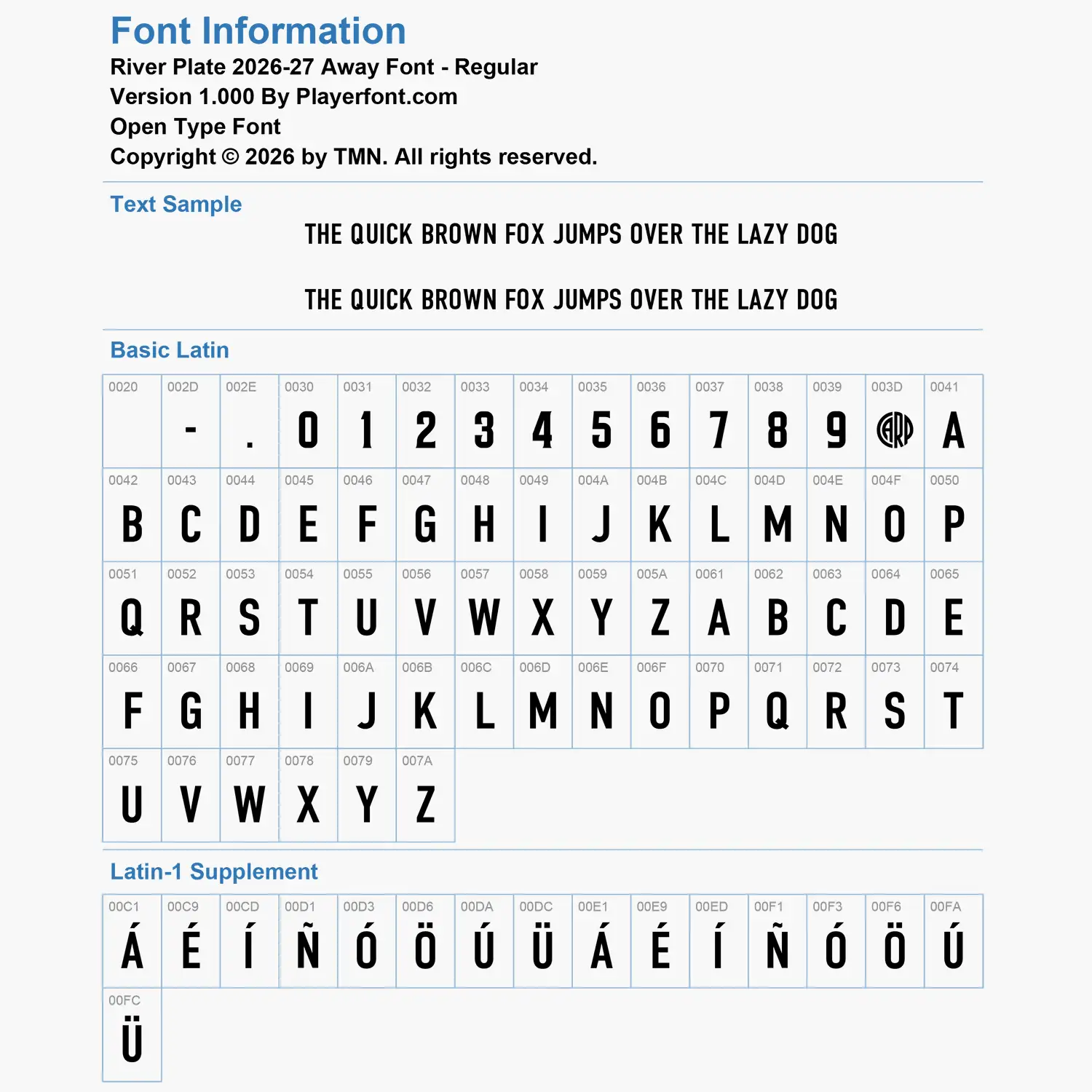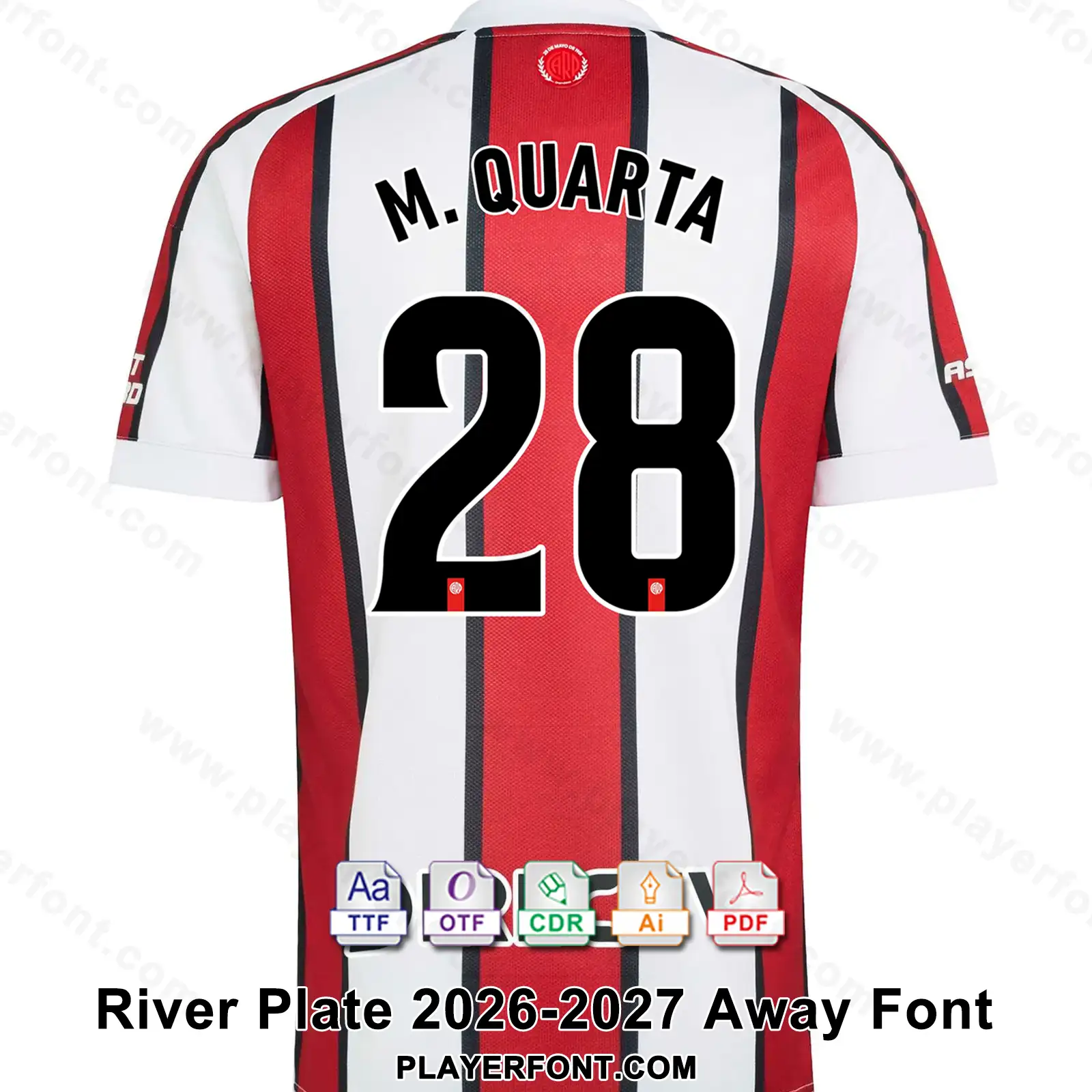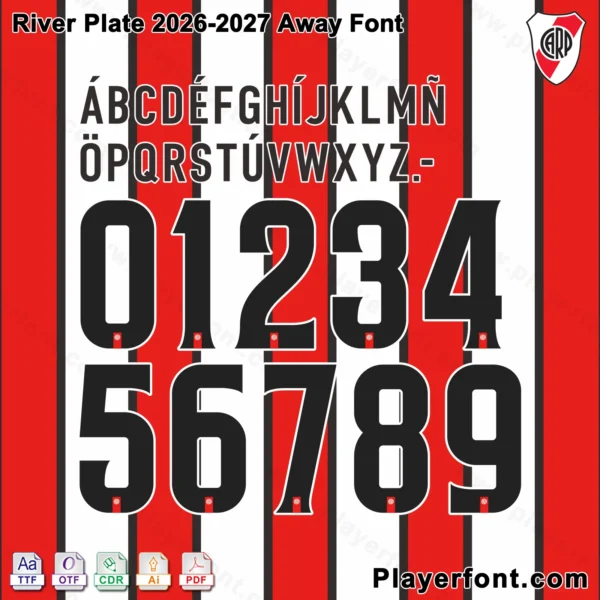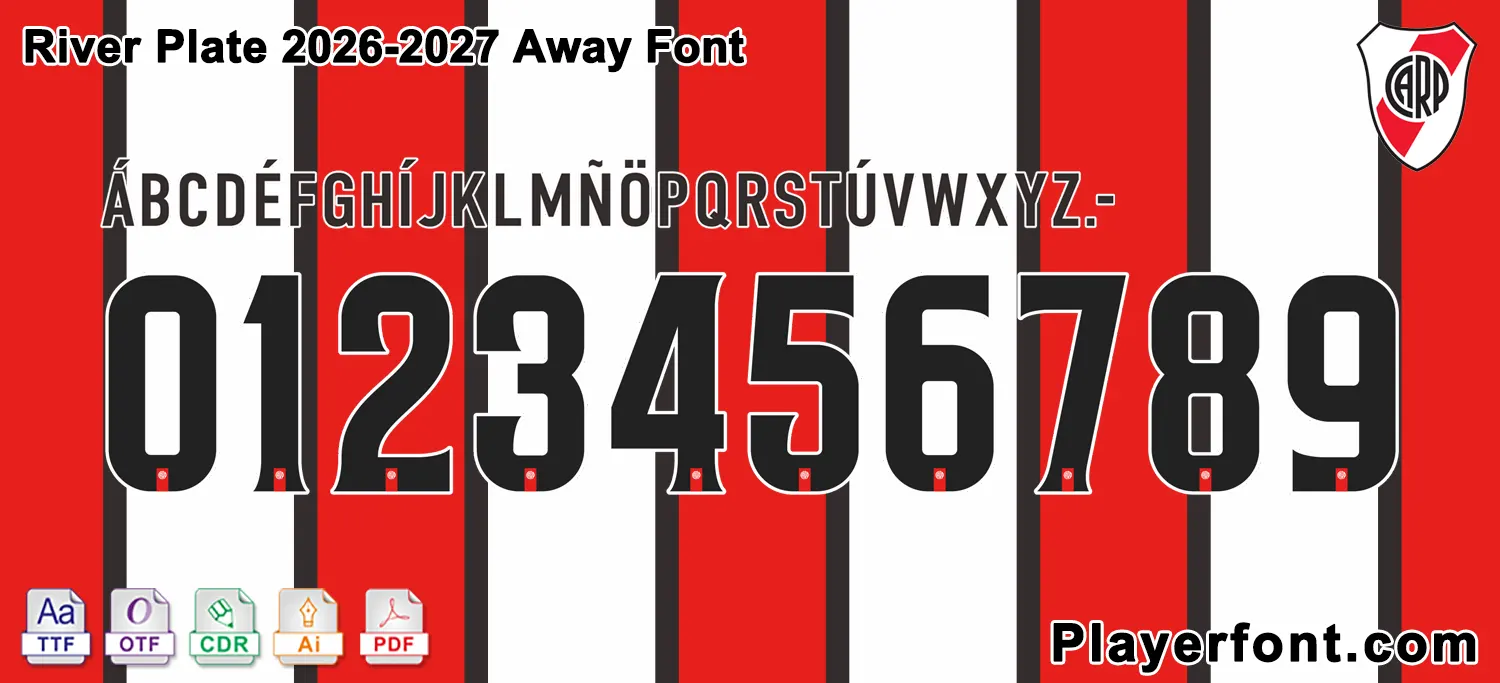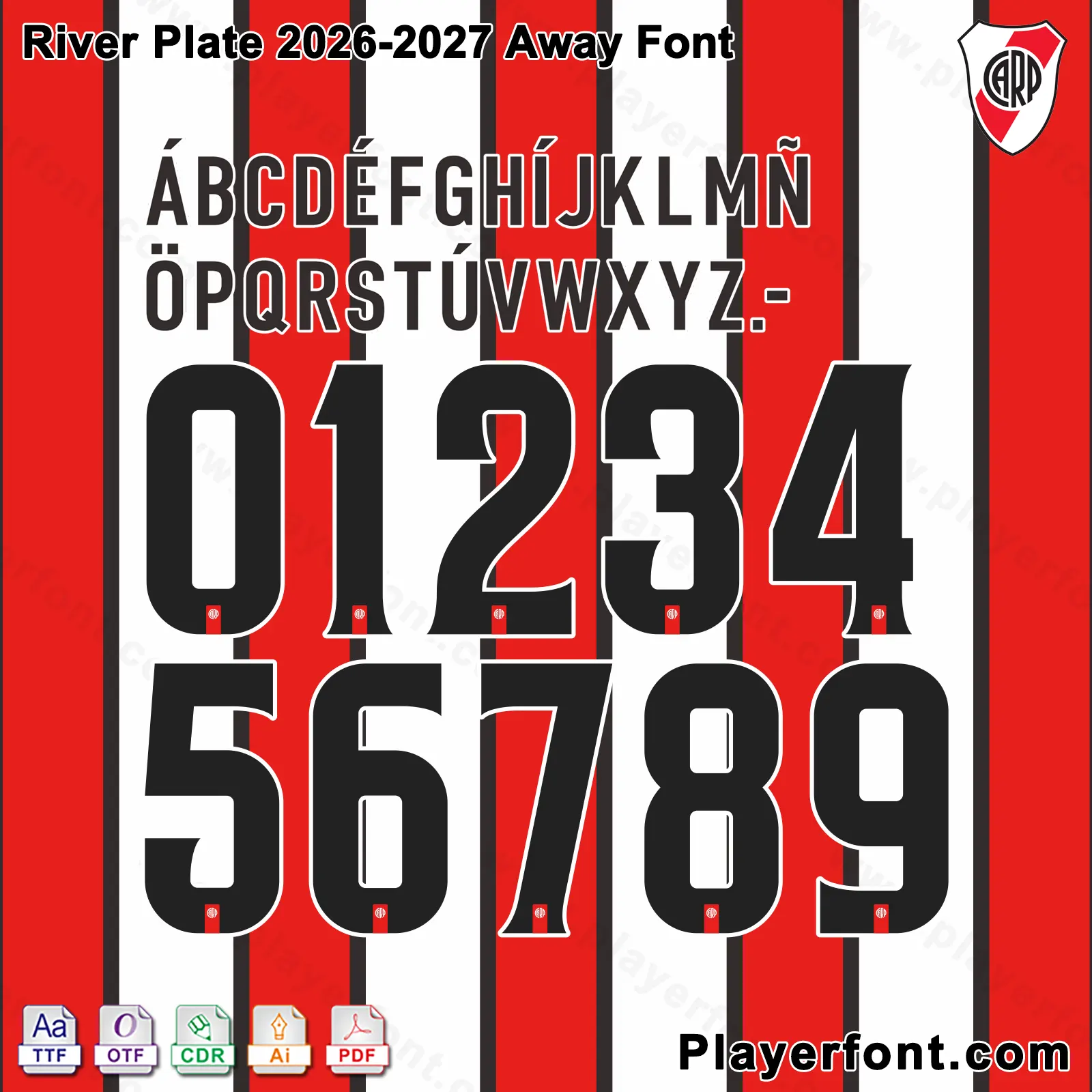
Download the premium River Plate 2026-2027 Away Font Kit today! This complete typography pack includes high-quality TTF, OTF, AI, CDR, and PDF vector files, fully compatible with vector design software and sports apparel printing. Features clean, bold athletic typography and solid black numbers with the official CARP club crest embedded into the base of each digit. Perfect for kit designers, vinyl plotting, and Los Millonarios fans.
Horizontal Vector Preview Banner for the River Plate Away Font
Elevate your sports jersey mockups, football custom graphics, and vector apparel printing projects with the high-quality River Plate 2026-2027 Away Font Download. Masterfully engineered by Playerfont.com, this high-performance typography set replicates the official-style numbers and distinct lettering featured on the pitch for Club Atlético River Plate’s away kit campaign.
Key Typography Features & Character List:
This typography pack is fully optimized to support international player rosters and diverse numbering layouts:
• Bold Block Lettering: Contains a powerful uppercase character set, custom geometric letters, numbers (0-9), hyphens, and periods.
• Advanced International Accent Support: Includes an expansive set of diacritics spanning Latin-1 Supplement (such as Á, É, Í, Ñ, Ó, Ö, and Ú) ensuring flawless rendering for global football stars and South American naming requirements (such as M. Quarta).
• Authentic Visual Details: The jersey numbers feature solid black block structures with a clean white contour outline, subtly embedded with the official CARP crest icon centered at the base of each digit.
Design Feature Solid Black Block Structure with White Outline & CARP Crest Base